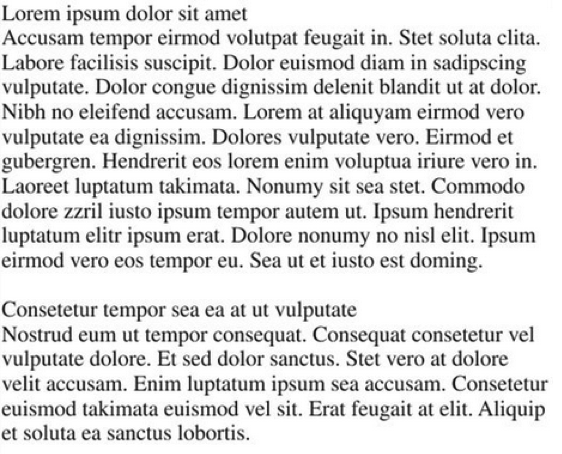
Tag Image
File Format (TIFF).
A computer format
forencoding pictures as high-resolution bitmapped images, suchas those created
by scanners.
Text.
The main body of written or
printed material, as opposedto display matter, footnotes, appendices, etc.
Text
type.
See Body type.
Thumbnail.
A miniature image of a
page, either a smallplanning sketch made by a designer or a reduction in a
page-layout program.
TIFF.
See Tag Image File Format.
Tracking.
The overall tightness or
looseness of the spacing between all characters in a line or block of text.
Sometimes usedinterchangeably with kerning, which more precisely is the
reduction in spacing between a specific pair of letters.
Transitional.
Classification of type
styles combining aspects ofboth Old Style and Modern typefaces; for example,
Baskerville.
Type
family.
The complete range of
variations of a typeface design, including roman, italic, bold, expanded,
condensed, andother versions.
Typeface.
The design of alphabetical
and numerical charactersunified by consistent visual properties.
Type-high.
The standard foot-to-face
height of metal types;0.9186 inches in English-speaking countries.
Typescript.
Typewritten manuscript
material used as copy fortypesetting.
Typesetting.
The composing of type by
any method orprocess, also called composition.
Type
specimen.
A typeset sample produced
to show the visualproperties of a typeface.
Typo.
See Typographical error.
Typographer.
A firm specializing in
typesetting. Sometimesused to denote a compositor or typesetter.
Typographical
error.
A mistake in typesetting,
typing, orwriting.
Typography.
Originally the composition
of printed matter frommovable type. Now the art and process of typesetting by
anysystem or method.